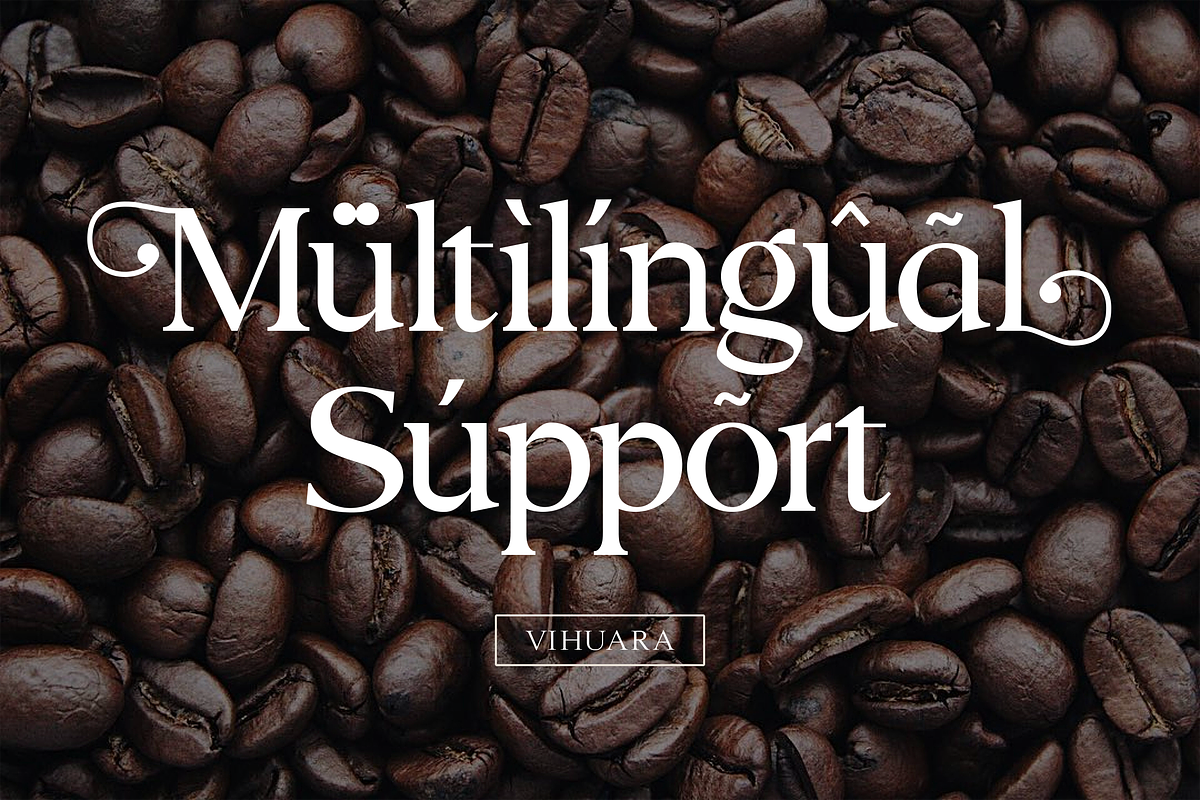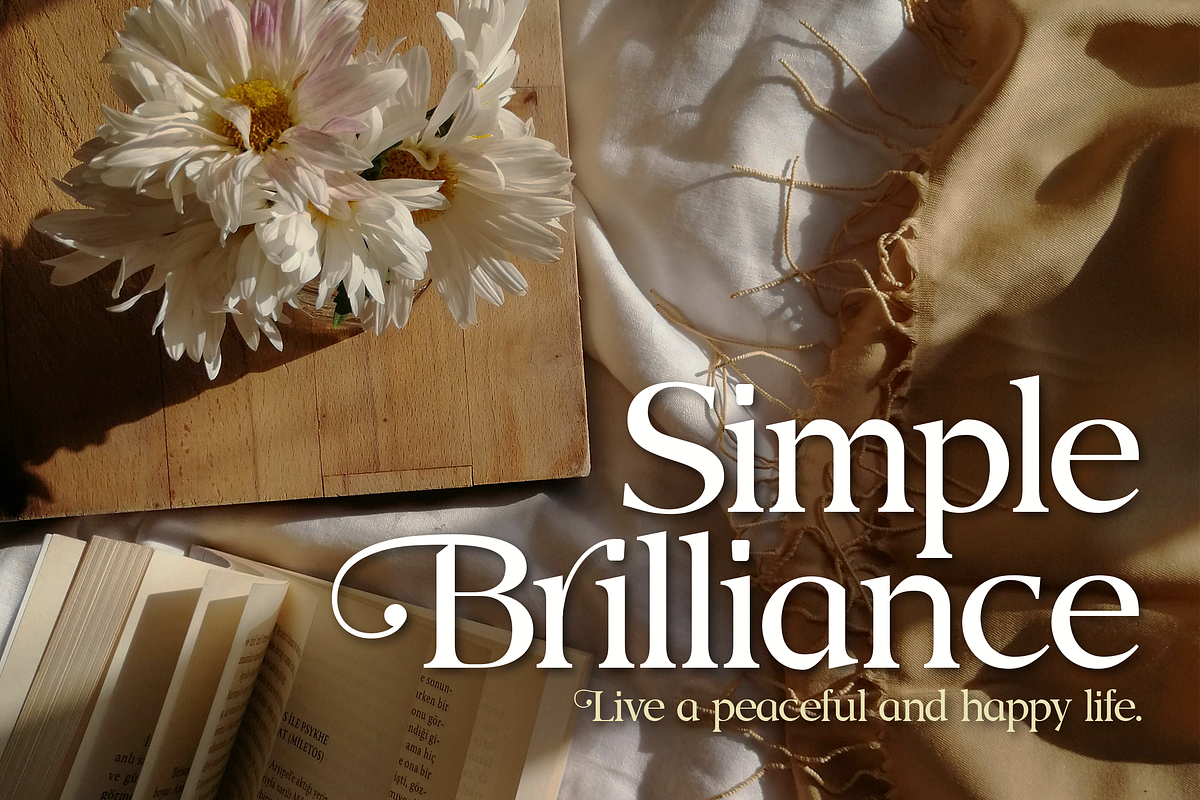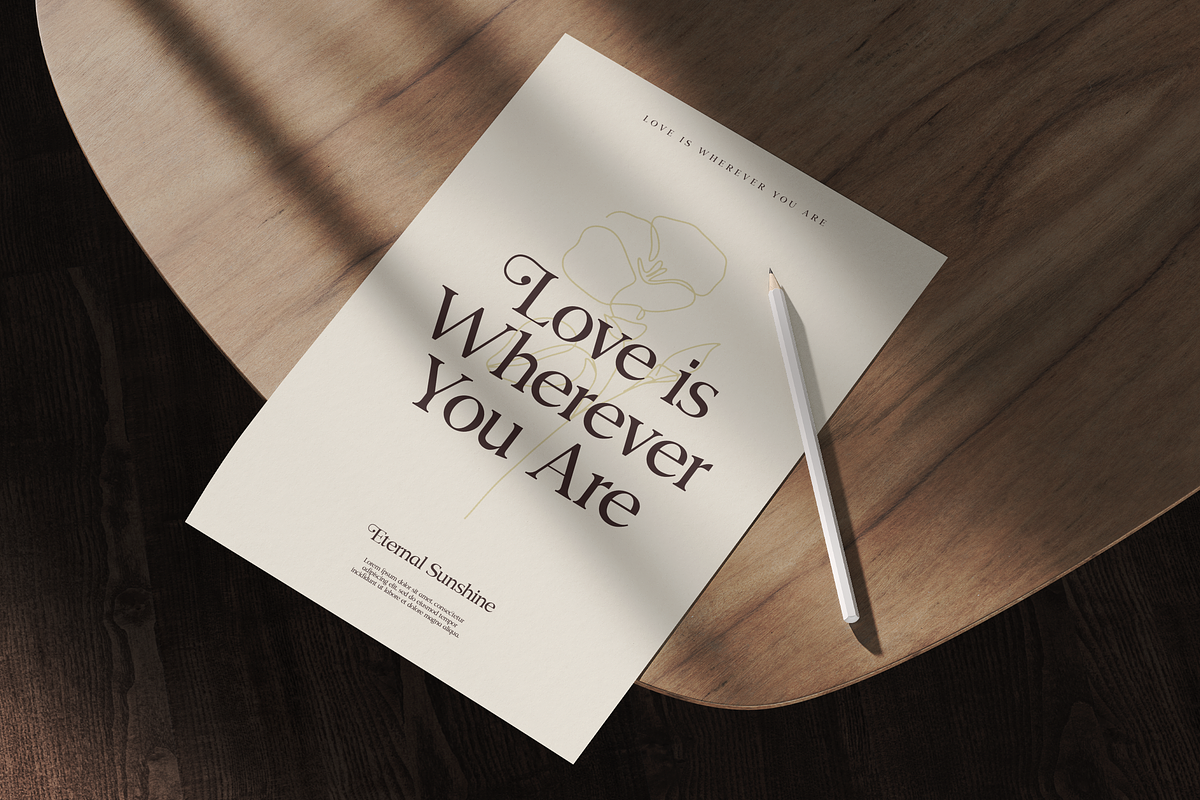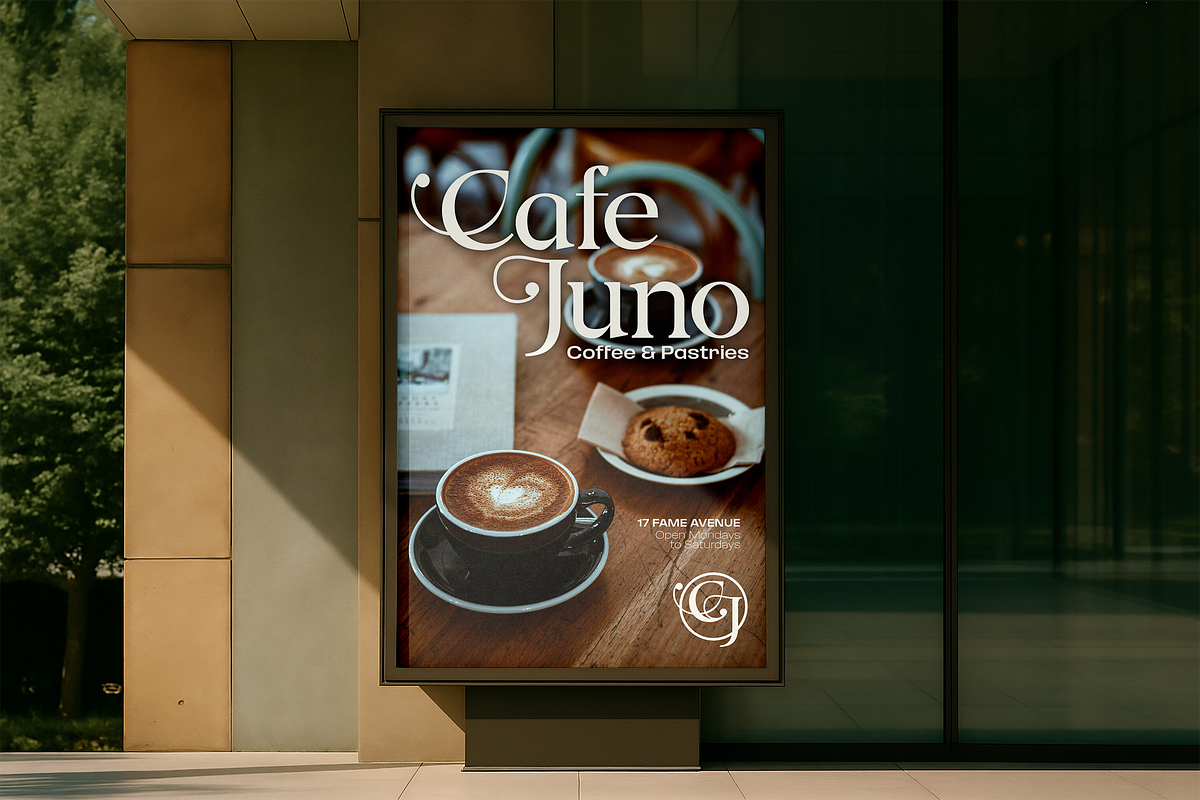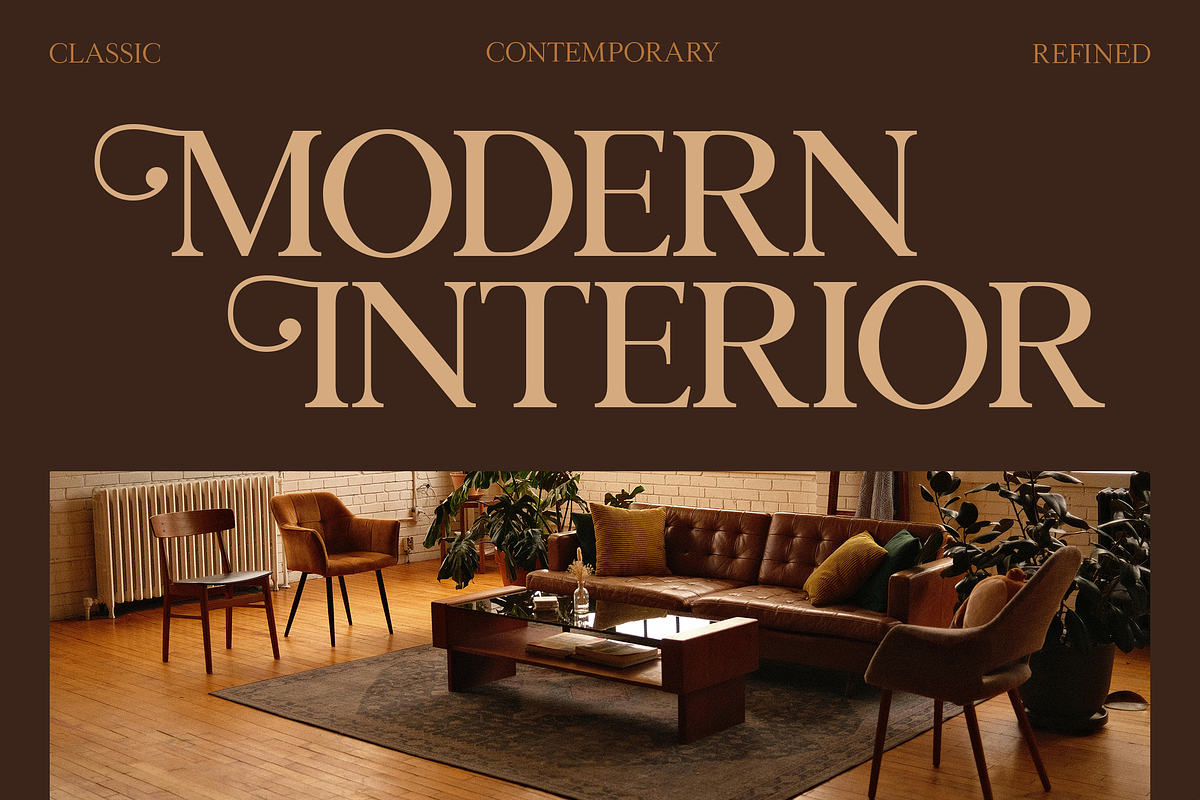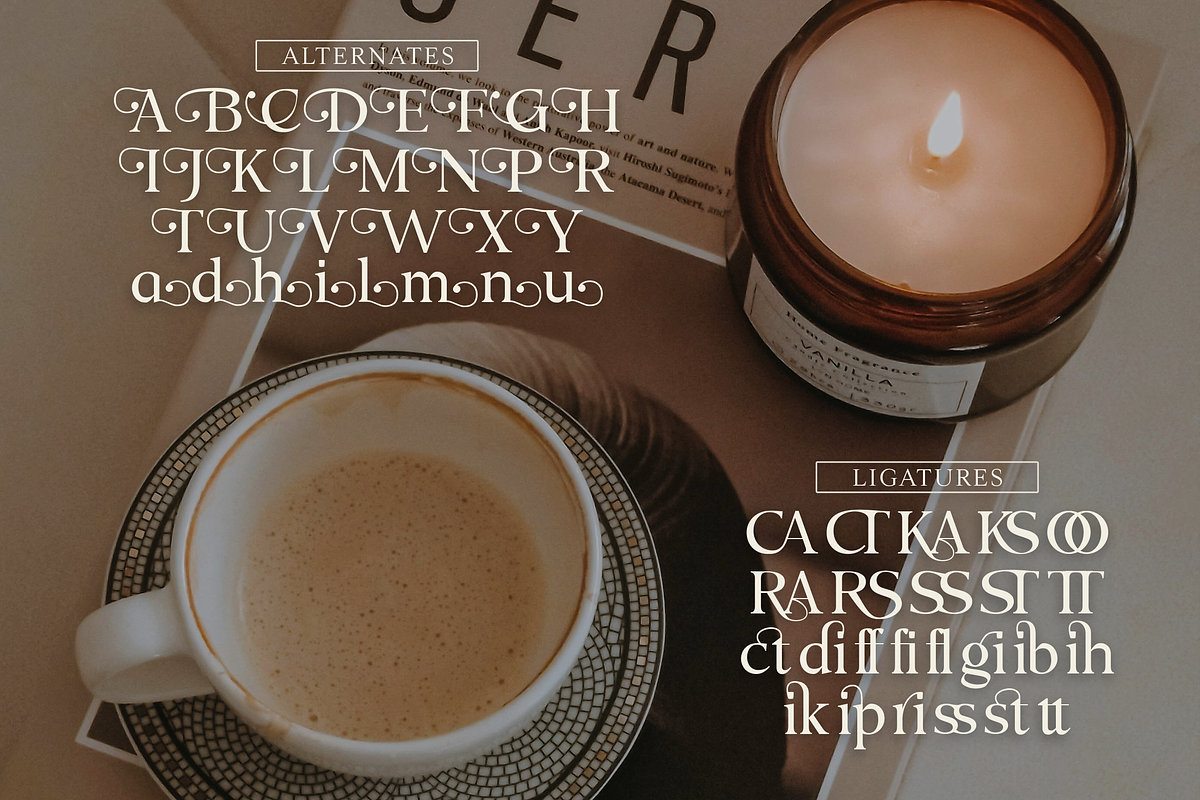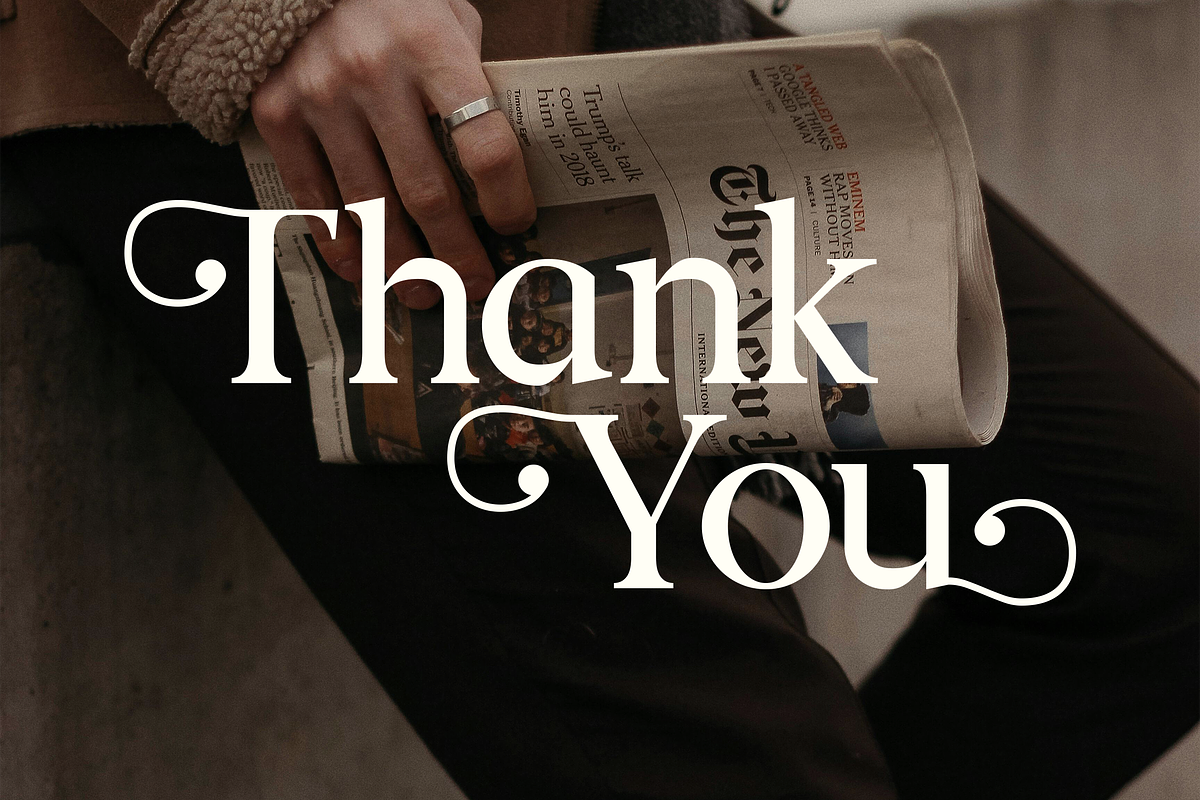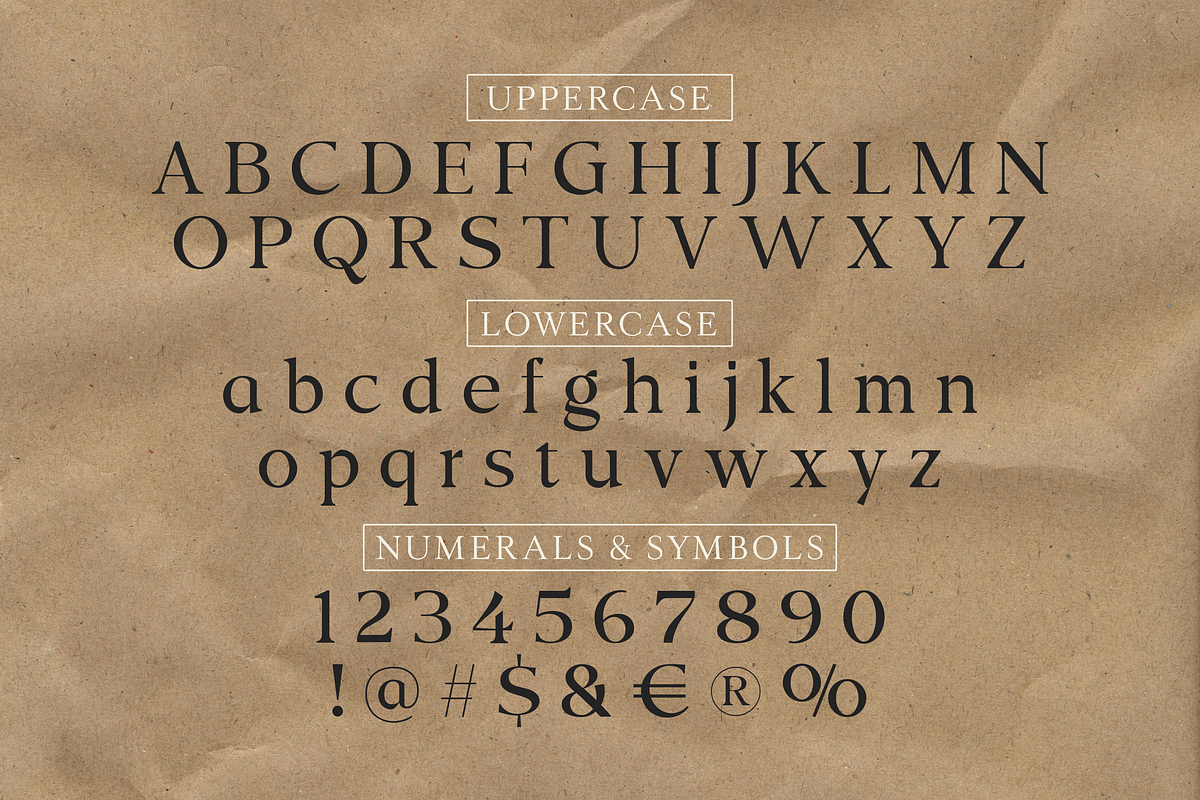
Vihaura - Decorative Serif Typeface
Vihaura is a bold and artistic serif that adds flair to any design. Perfect for posters, logos, invitations, magazines, websites and more.
Stand out with its stylish curves and detailed strokes that bring creativity and elegance together in one distinctive typeface.
- Multilingual & Ligature Support
- Full sets of Punctuation and Numerals